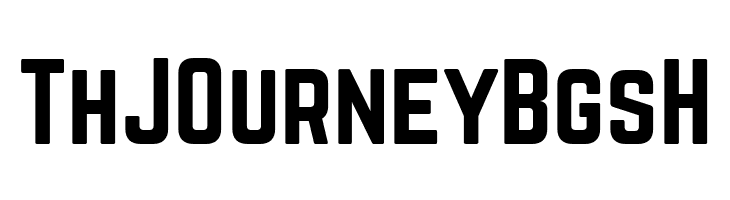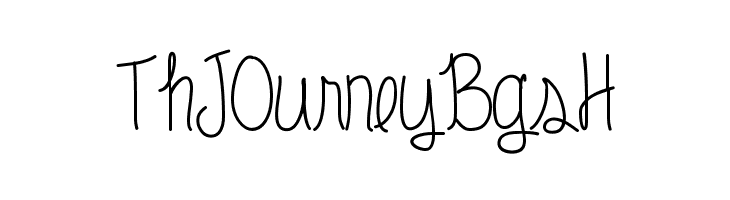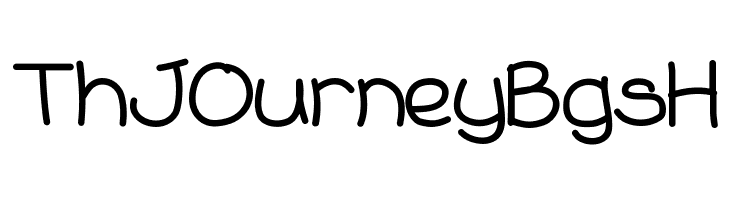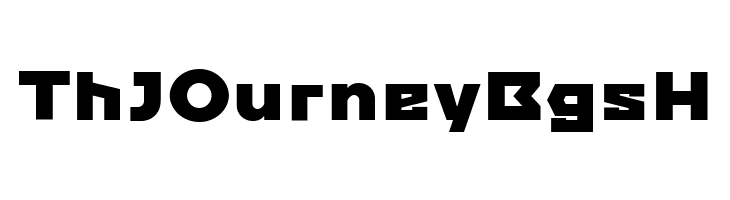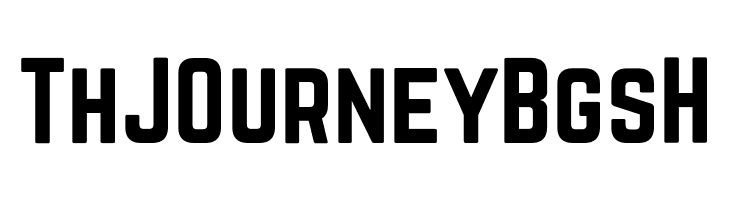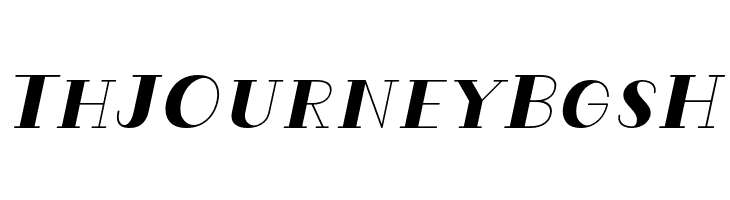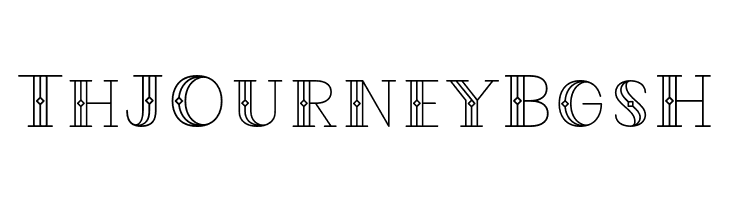
A whimsical, decorative font with floral-inspired, intertwining uppercase letters.
A decorative serif font with a medieval touch and modern elegance.
A geometric and abstract font with sharp angles and bold shapes.
A bold, artistic font with flowing, dynamic strokes and a modern, edgy style.
A bold, urban font with a 3D graffiti-inspired style.
A modern, geometric font with bold, artistic elements.
A geometric, modular font with a bold, modern design.
A playful, handwritten font with a casual and friendly vibe.
A playful and casual handwritten font with a relaxed, informal style.
A playful, handwritten-style font with irregular strokes and a casual vibe.
A playful, handwritten font with a casual and informal style.
A bold, handwritten font with a playful and casual style.
A playful, casual handwritten font with uneven strokes and a friendly vibe.
A playful, handwritten font with a casual and whimsical style.
A playful, handwritten font with a casual and dynamic style.
A playful, handwritten font with bold, consistent strokes and a casual style.
A whimsical, curly script font with elegant swirls and a playful handwritten style.
A playful, bold handwritten font with a casual and dynamic style.
A playful and informal handwritten font with a casual vibe.
A playful, casual handwritten font with uneven strokes and a lively appearance.
A playful, casual handwritten font with flowing strokes and a friendly tone.
A playful, casual handwritten font with fluid, dynamic strokes.
A playful, casual handwritten font with loose, flowing strokes.
Hand-drawn, tree-themed decorative font with playful, organic forms.
A playful, casual handwritten font with irregular, free-flowing letterforms.
A playful, curly handwritten font with a whimsical and energetic style.
A playful, casual handwritten font with flowing strokes and rounded edges.
A playful and casual handwritten font with a dynamic, informal style.
A playful, casual handwritten font with a lively and dynamic style.
A playful, casual handwritten font with irregular strokes and a lively appearance.
A playful, handwritten font with bold, irregular strokes and a casual style.
A playful, handwritten font with a casual and lively style.